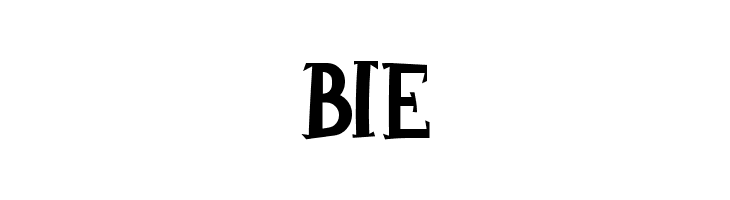
A bold, italicized font with angular, condensed letterforms and medium contrast.
A bold, outlined decorative font with geometric precision.
A bold, distressed font with a vintage and rugged appearance.
A modern, geometric monospaced font with clean lines and rounded corners.
A bold, modern font with a structured, monospaced appearance and rounded edges.
A modern, geometric inline font with a unique hollow effect.
A geometric, minimalist font with thin strokes and a modern aesthetic.
A modern, elegant script font with flowing, handwritten characteristics.
An elegant script font with intricate swirls, ideal for formal and romantic occasions.
An elegant and flowing script font with decorative loops and swashes.
A bold, Western-inspired font with sharp angles and thick strokes.
A bold, angular italic font with high contrast and a modern, dynamic style.
A modern serif font with geometric shapes and a vintage touch.
A modern outline font with geometric and clean letterforms.
A bold, futuristic font with geometric shapes and sharp angles.
A bold, 3D geometric font with a futuristic and modern aesthetic.
A modern, futuristic font with a gradient effect created by horizontal lines.
A futuristic, angular font with sharp edges and geometric shapes.
A playful, Halloween-themed font with bold, jagged edges and a carved appearance.
A playful, handwritten font with rounded edges and a casual, friendly appearance.
A modern, geometric font with sharp angles and clean lines.
A modern inline font with geometric elegance and bold structure.